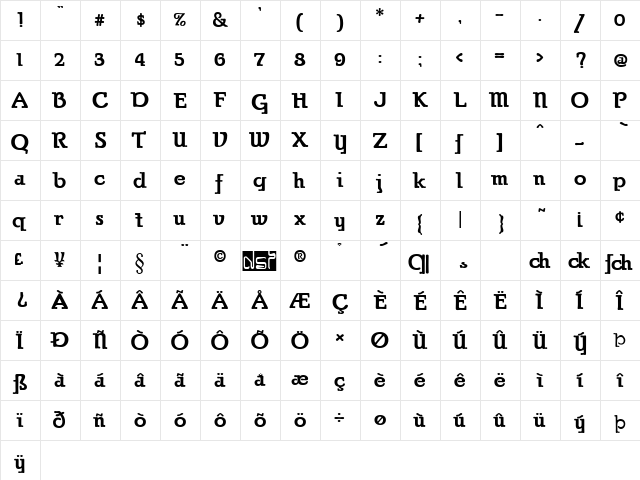
Parsons Regular
Design Context for Parsons Typeface
Parsons offers clean, dependable letterforms without strong stylistic allegiance, making it a practical choice for designers who need flexibility.